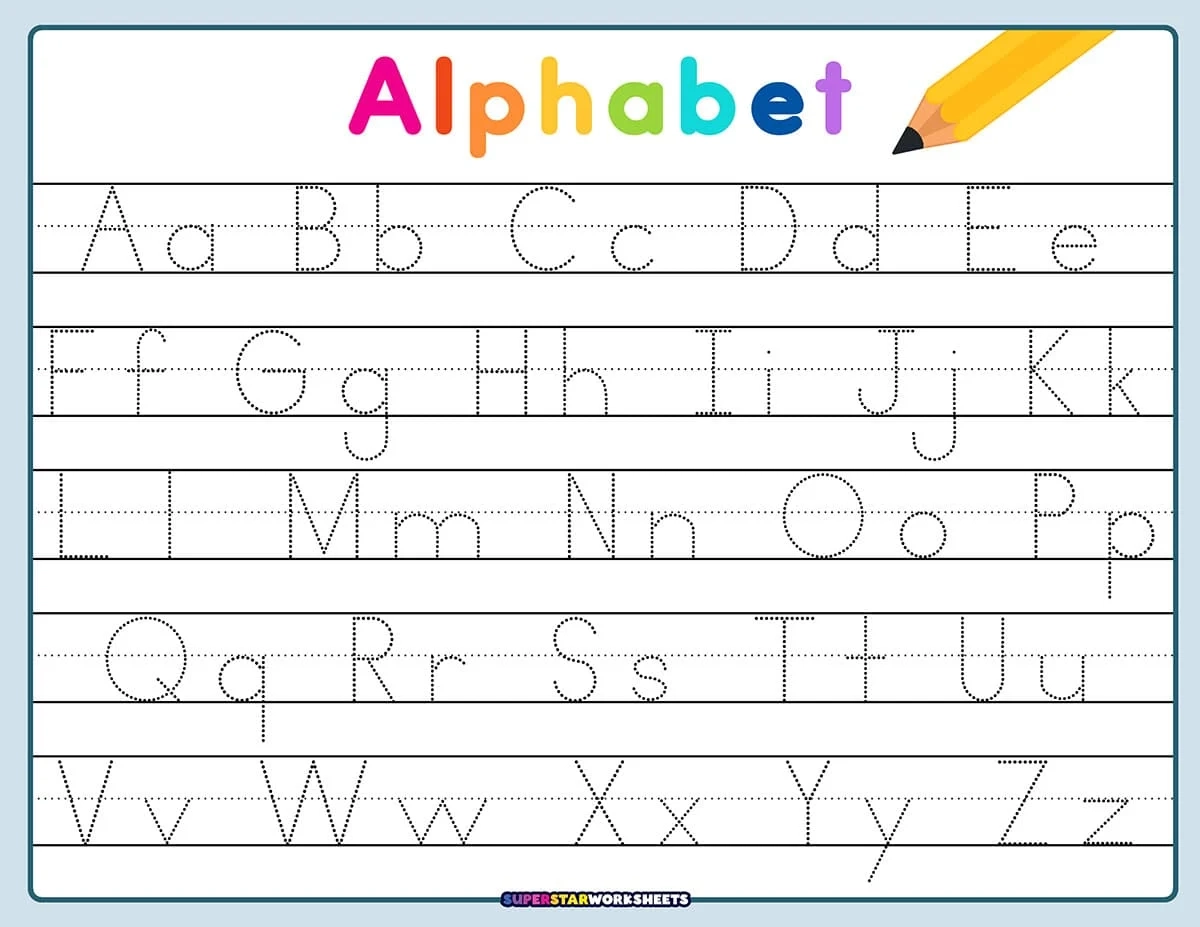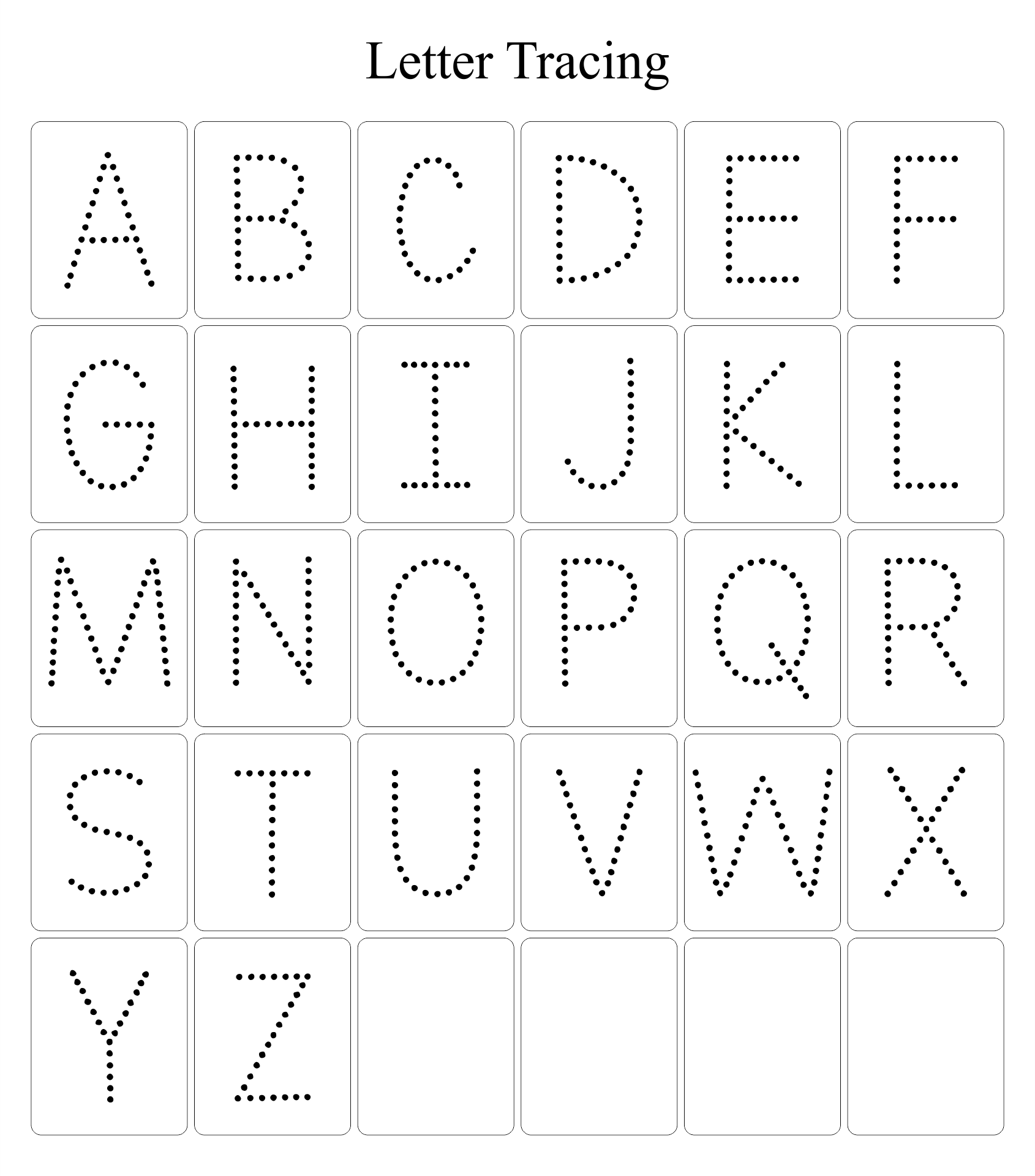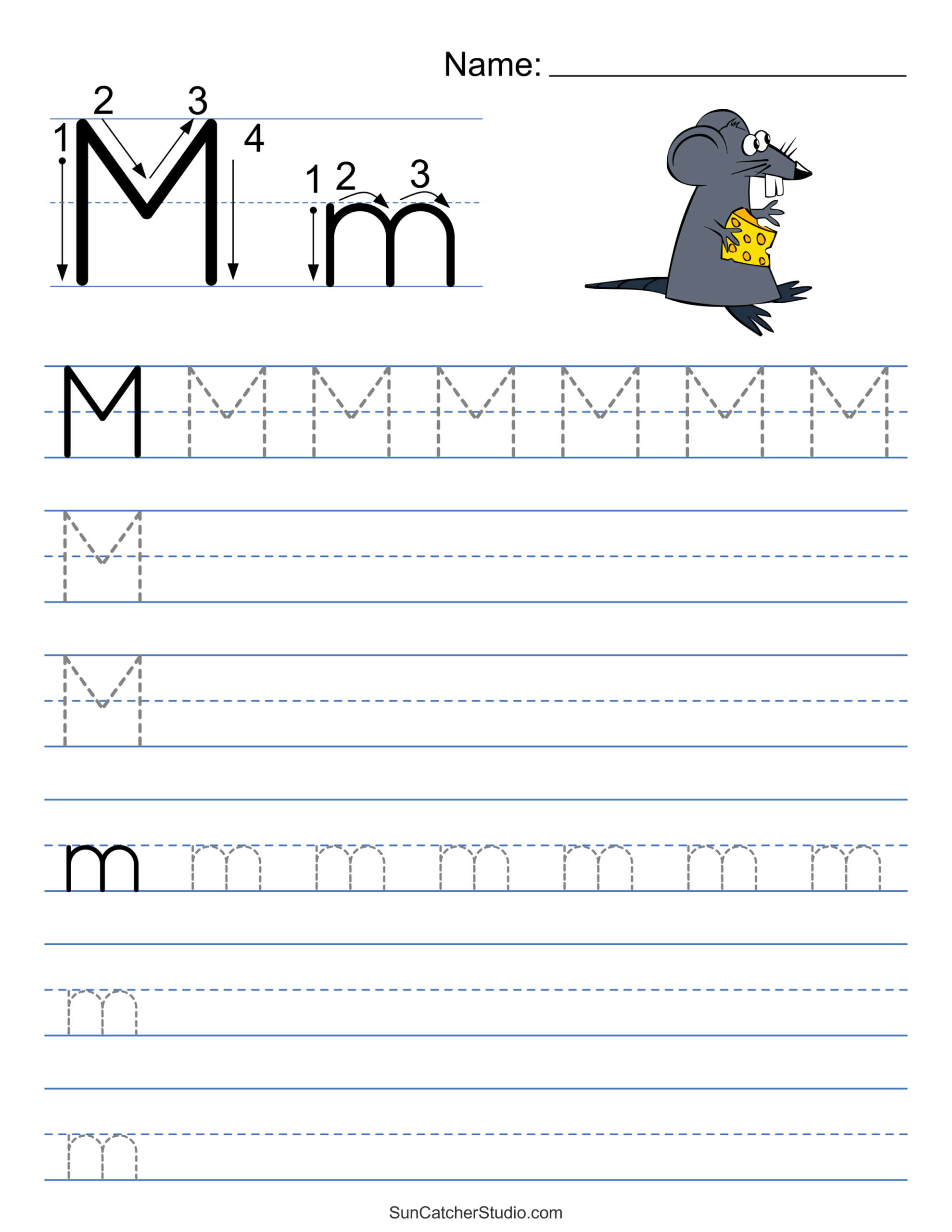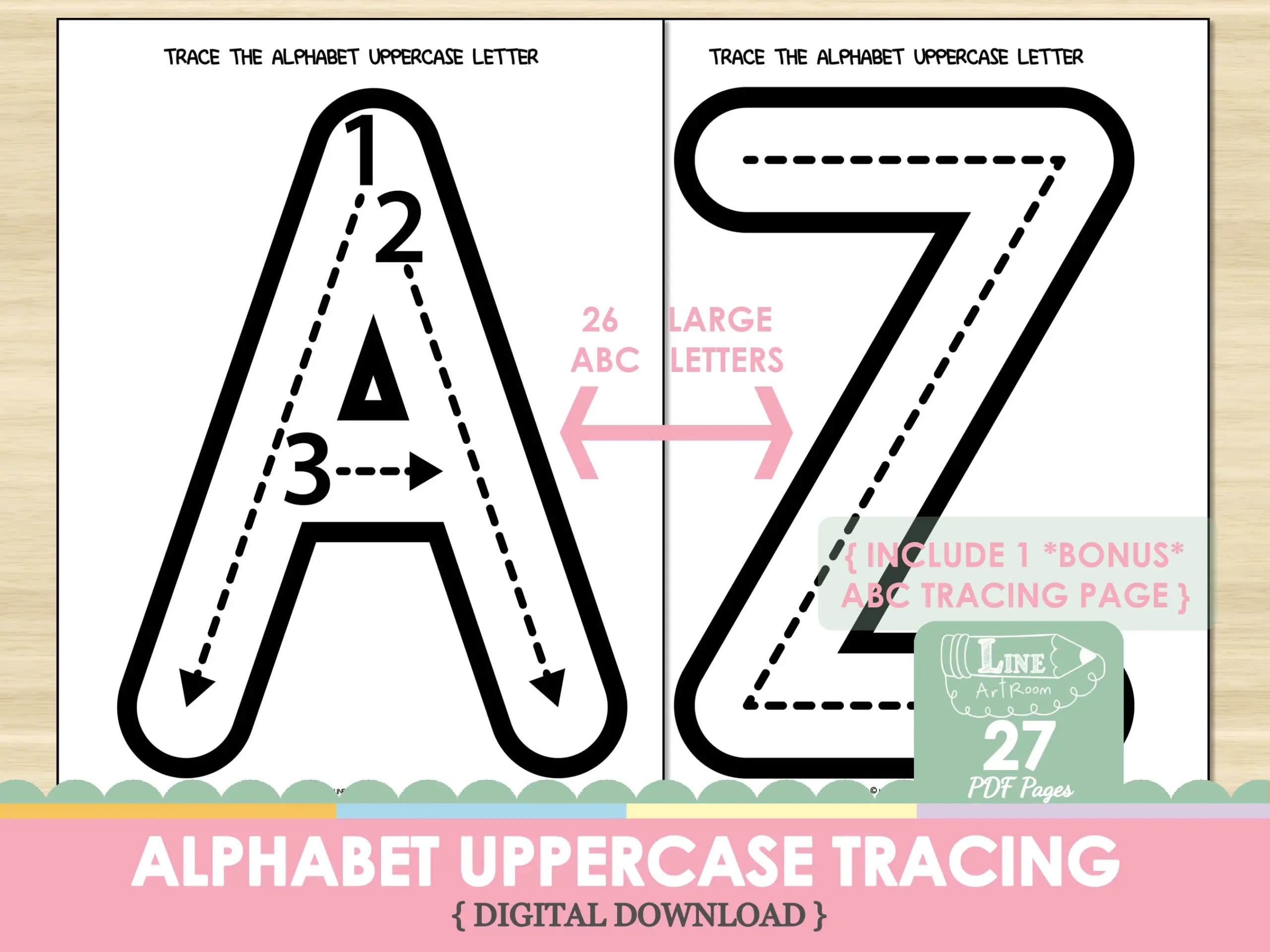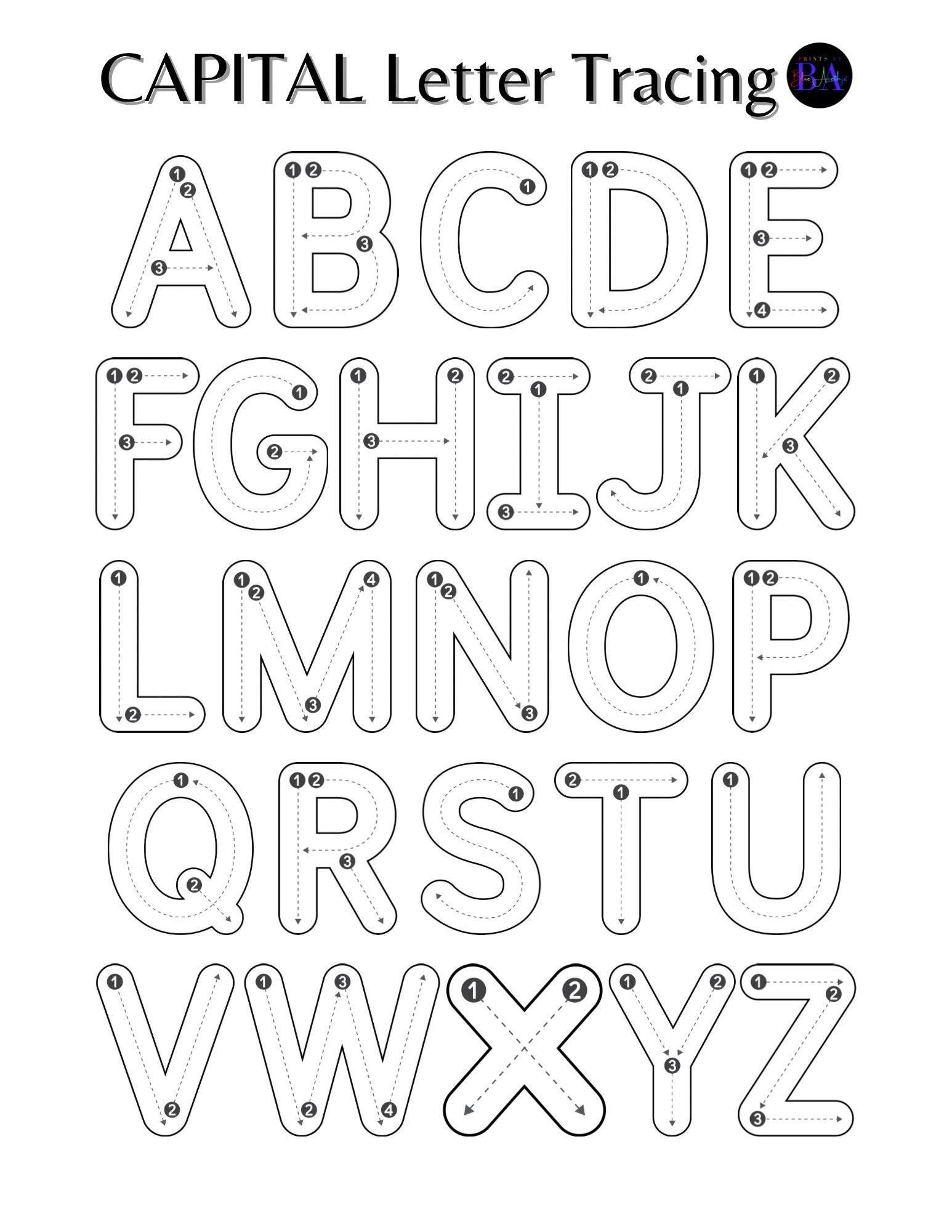
Finding the right tools for teaching kids can be a challenge, especially when it comes to writing. A fun and engaging way to help children learn is through tracing letters. This method not only enhances their writing skills but also boosts their confidence.
The Big Alphabet Tracing Font is perfect for parents and teachers looking to make learning enjoyable. Its large, clear letters allow children to trace easily, improving their motor skills and letter recognition.
Using this font in worksheets or digital documents can transform boring practice into an exciting activity. Kids will love tracing the big letters, which can lead to better retention of the alphabet.
Additionally, the font is versatile. You can use it for various educational materials, including flashcards, coloring pages, and even classroom decorations. This flexibility makes it a valuable addition to any teaching toolkit.
Incorporating the Big Alphabet Tracing Font into your teaching strategy can make a significant difference in how children learn to write. With its engaging design, kids will be excited to practice their letters daily.